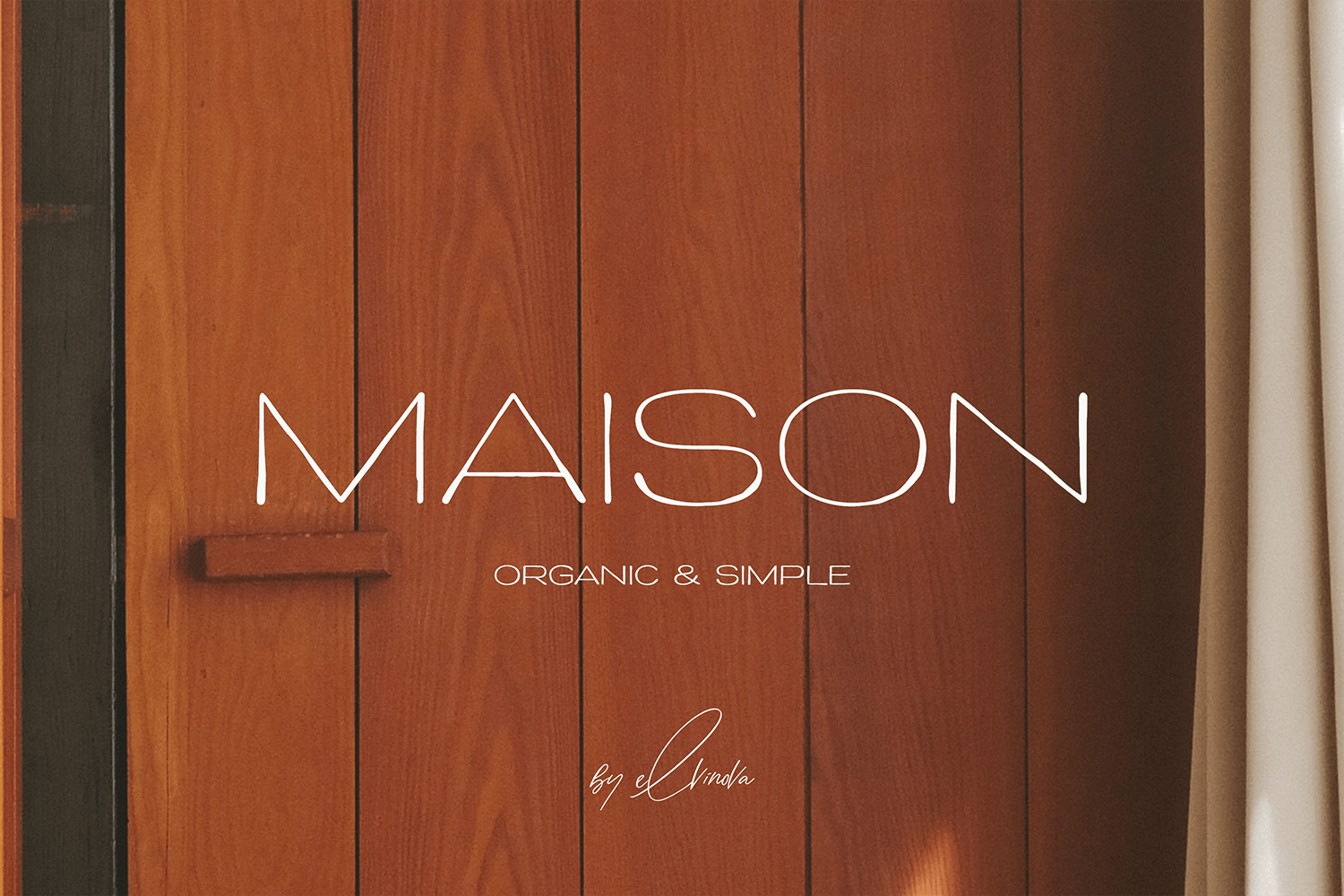
Maison Handwritten Sans Font
Maison Handwritten Sans Font Free Download offers a perfect fusion of modern simplicity and personal touch. For commercial use, you must purchase this font, but you can download it for free for testing purposes. This versatile typeface is perfect for a wide range of creative projects, including modern branding, elegant logos, wedding invitations, social media quotes, and editorial designs. What makes this font so exciting is its unique ability to combine the clean, minimalist lines of a sans-serif with the warm, organic imperfections of a handwritten font. The Maison Handwritten Sans font family includes a range of weights, such as Light, Regular, and Bold, along with a variety of ligatures and stylistic alternates, providing you with a complete and flexible design solution.
This isn’t just a font; it’s a design philosophy. The clean structure of Maison Handwritten Sans makes it highly legible and suitable for a variety of applications, while its subtle, hand-drawn texture gives it a sense of authenticity and personality. It’s the perfect choice for projects that need to feel both professional and approachable, modern yet personal. Whether you’re a designer crafting a brand identity that needs to be sophisticated and friendly, or a creative looking for a font that adds a touch of bespoke charm to your work, this typeface provides the perfect foundation. The carefully crafted letterforms ensure a harmonious flow that is easy on the eyes and aesthetically pleasing.
The versatility of the Maison Handwritten Sans family is one of its greatest strengths. You can use the light weight for an airy, elegant feel, the regular weight for a balanced and versatile look, and the bold weight for headlines that stand out with a confident, personal touch. The included ligatures and alternates allow you to customize your text and create truly unique typographic compositions that feel handcrafted and original. This flexibility makes it an invaluable asset for designers who need to create custom content that feels both contemporary and genuine. It’s a font that works hard, delivering a look that is both stylish and full of character.